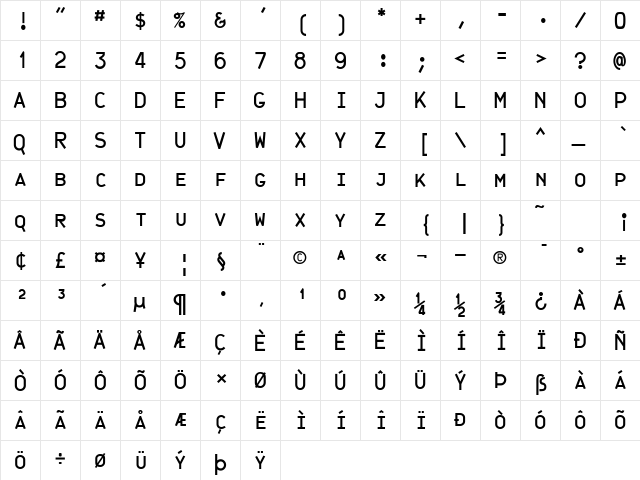
JetJaneMonoCaps Bold
Design Context for JetJaneMonoCaps Typeface
JetJaneMonoCaps brings the precise, column-aligned rhythm of monospaced typography to designs that value technical clarity and systematic order. Its bold stroke weight gives it real presence on the page.
A natural fit for code editors, technical documentation, developer-focused branding, and terminal-inspired UI.
Pro Tip: Pair JetJaneMonoCaps with a proportional sans for UI contexts where code-style labels and regular body copy need to coexist.